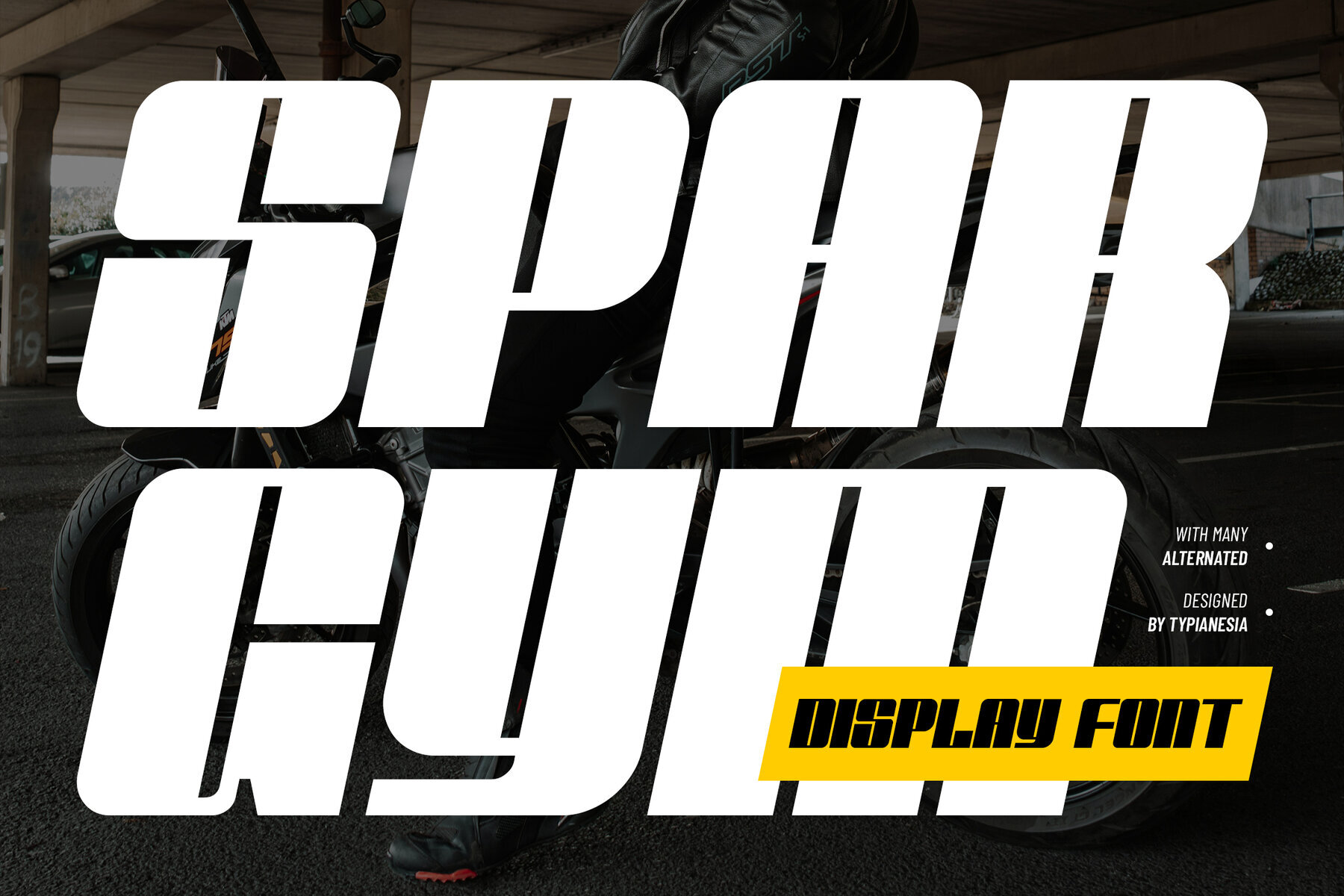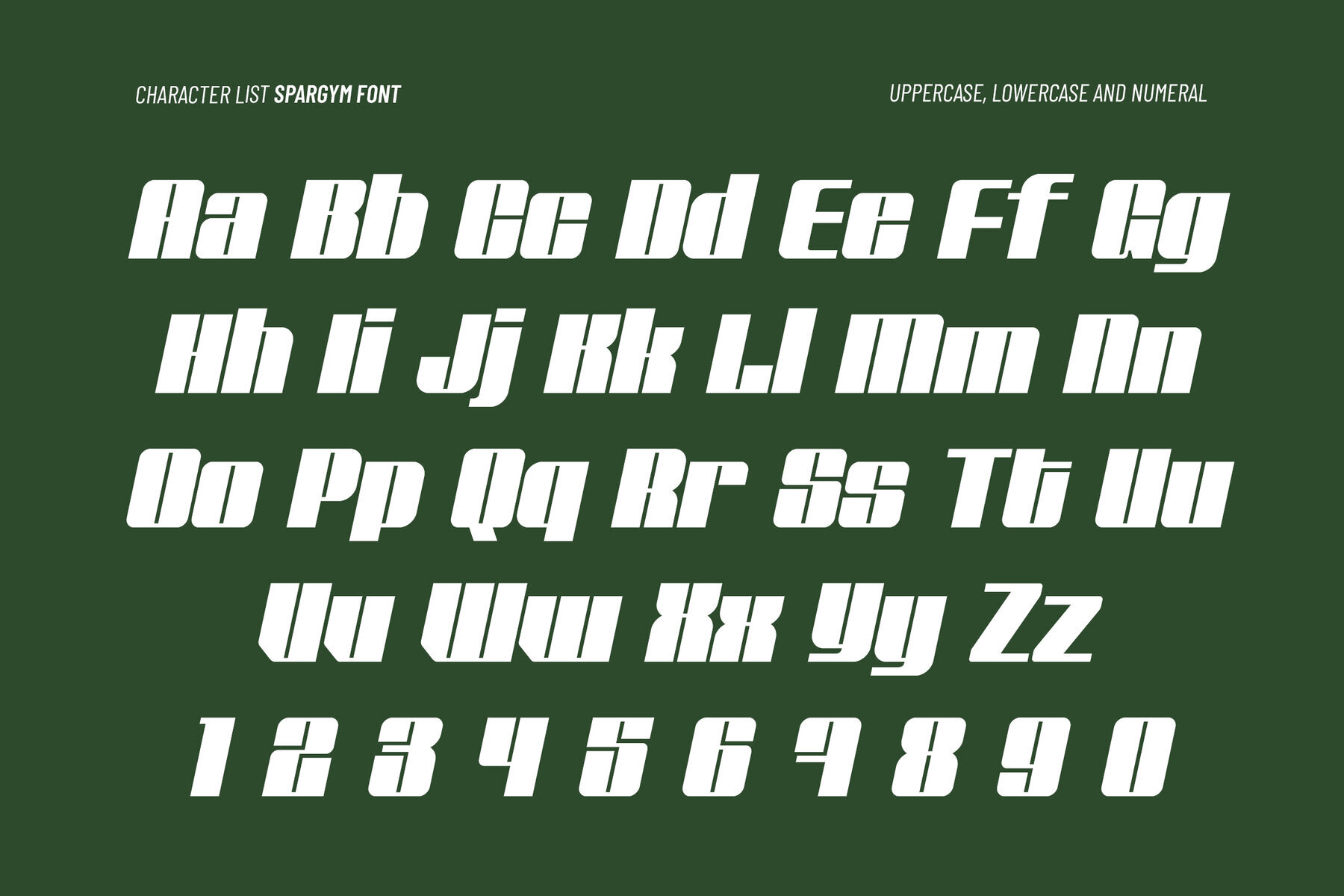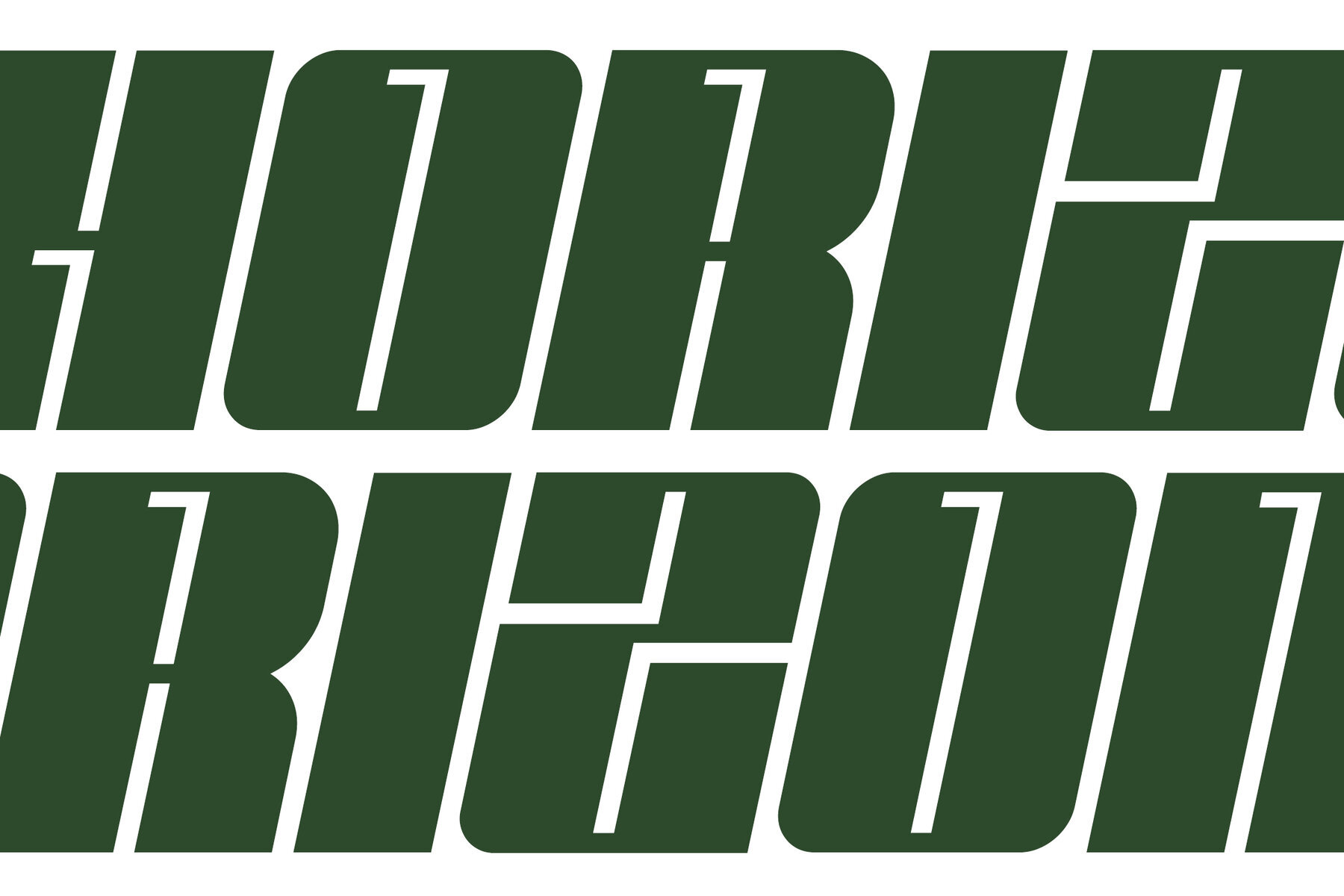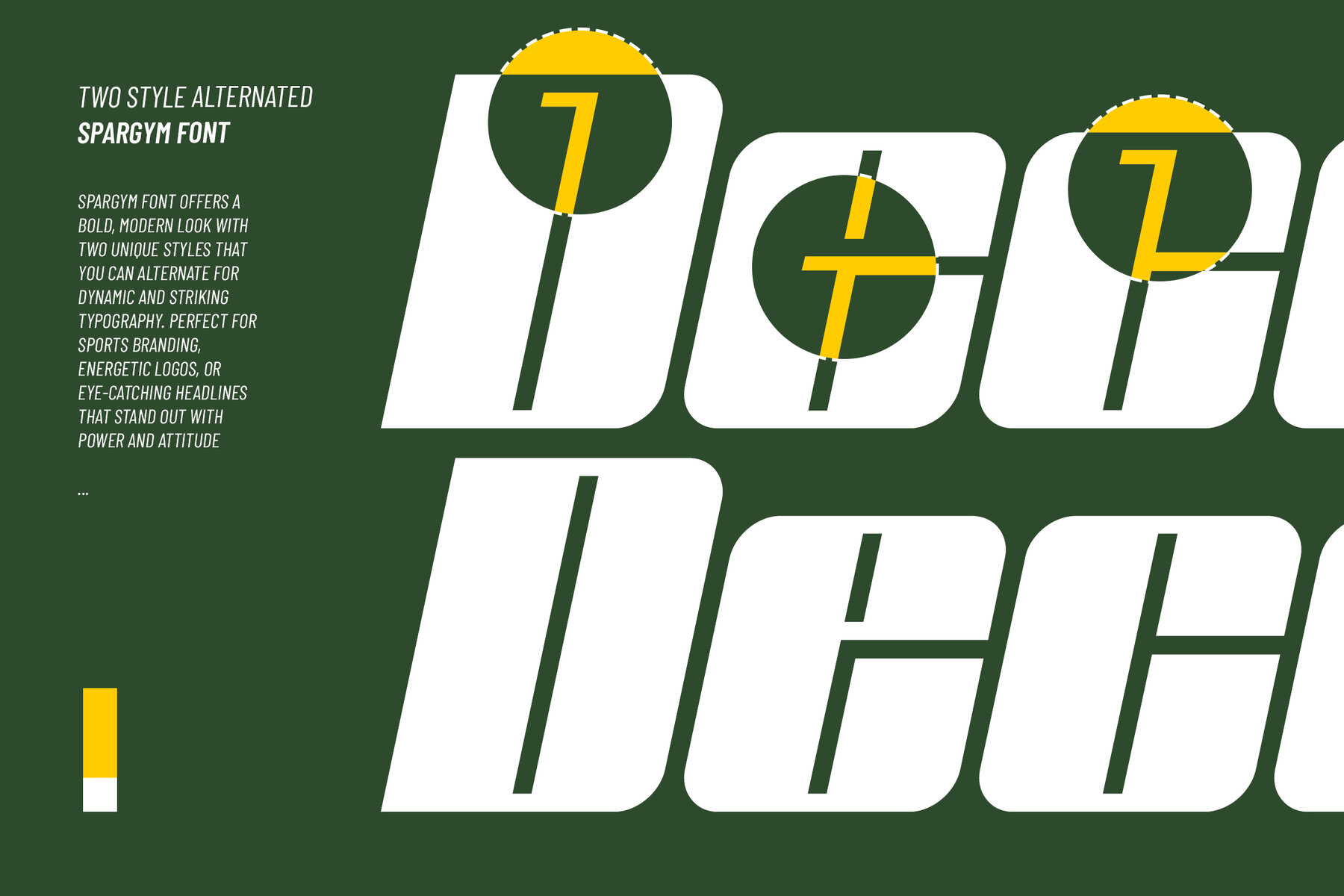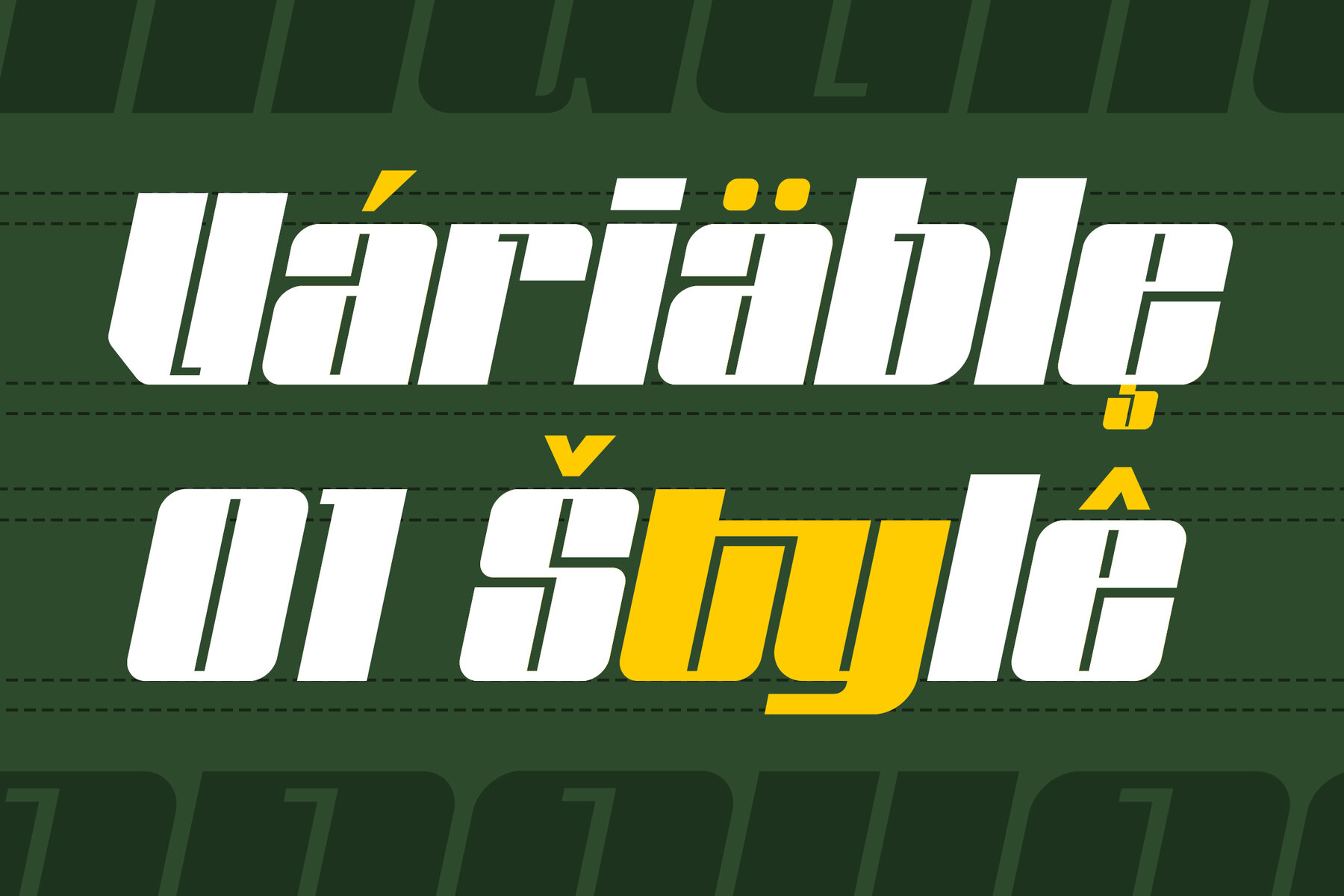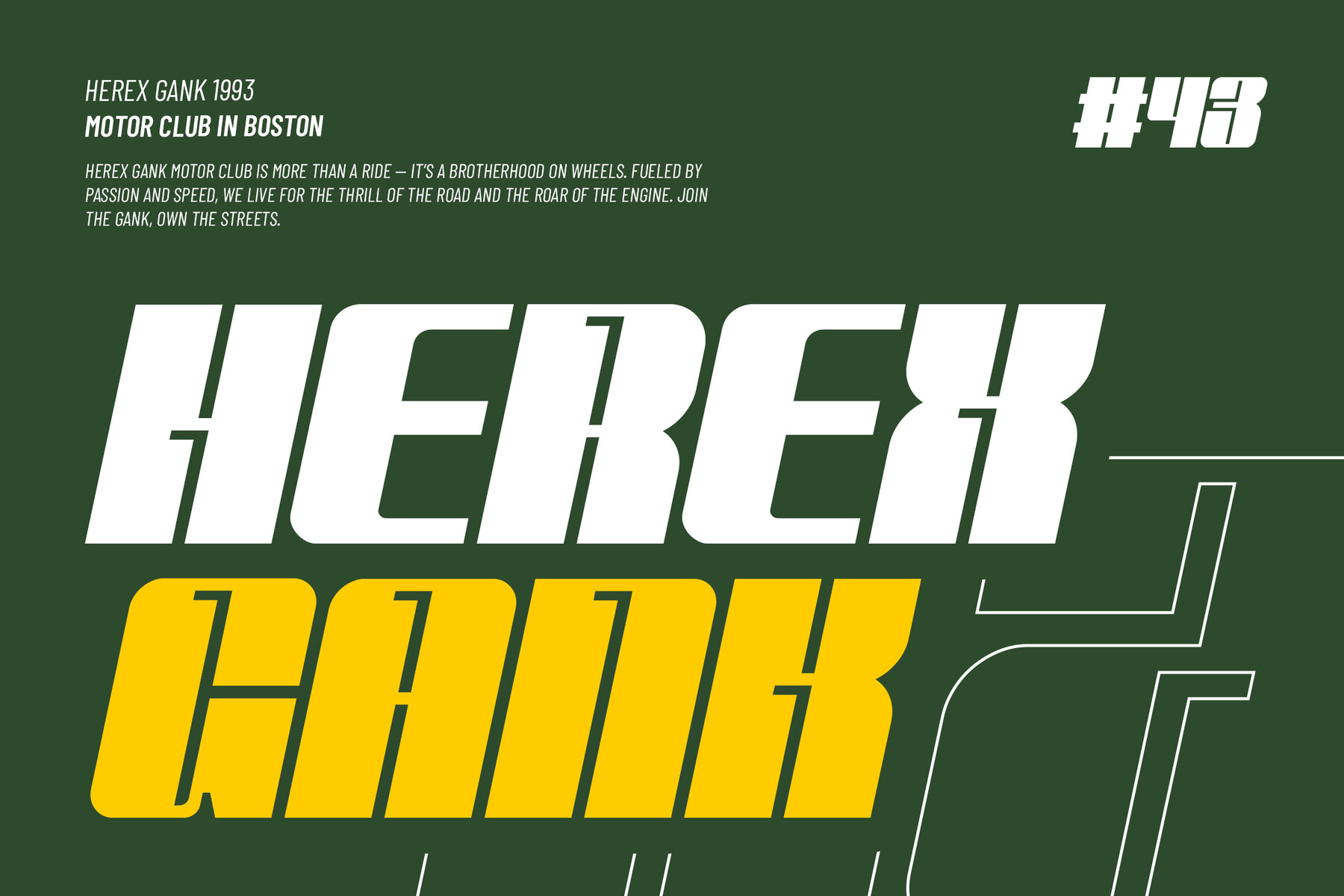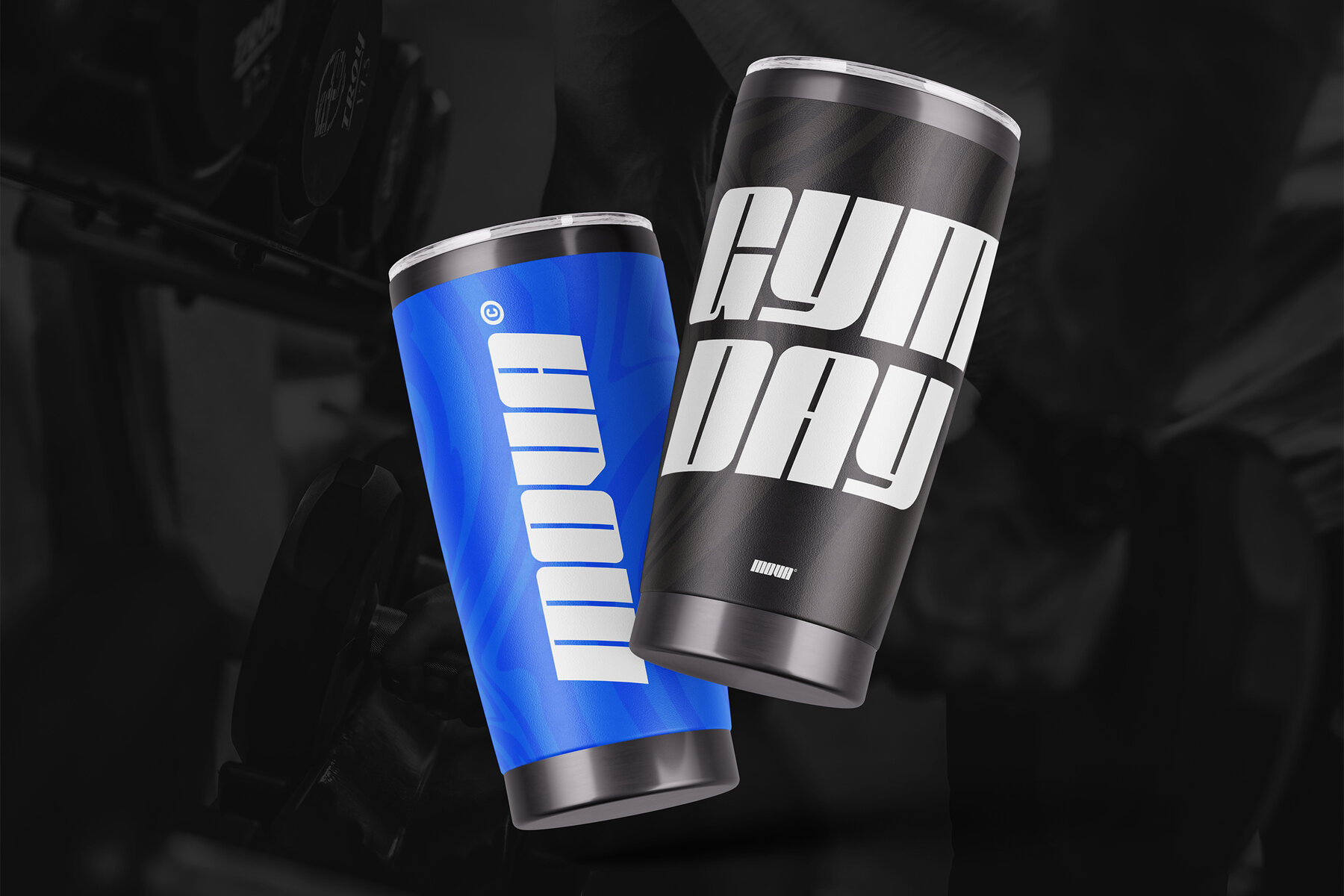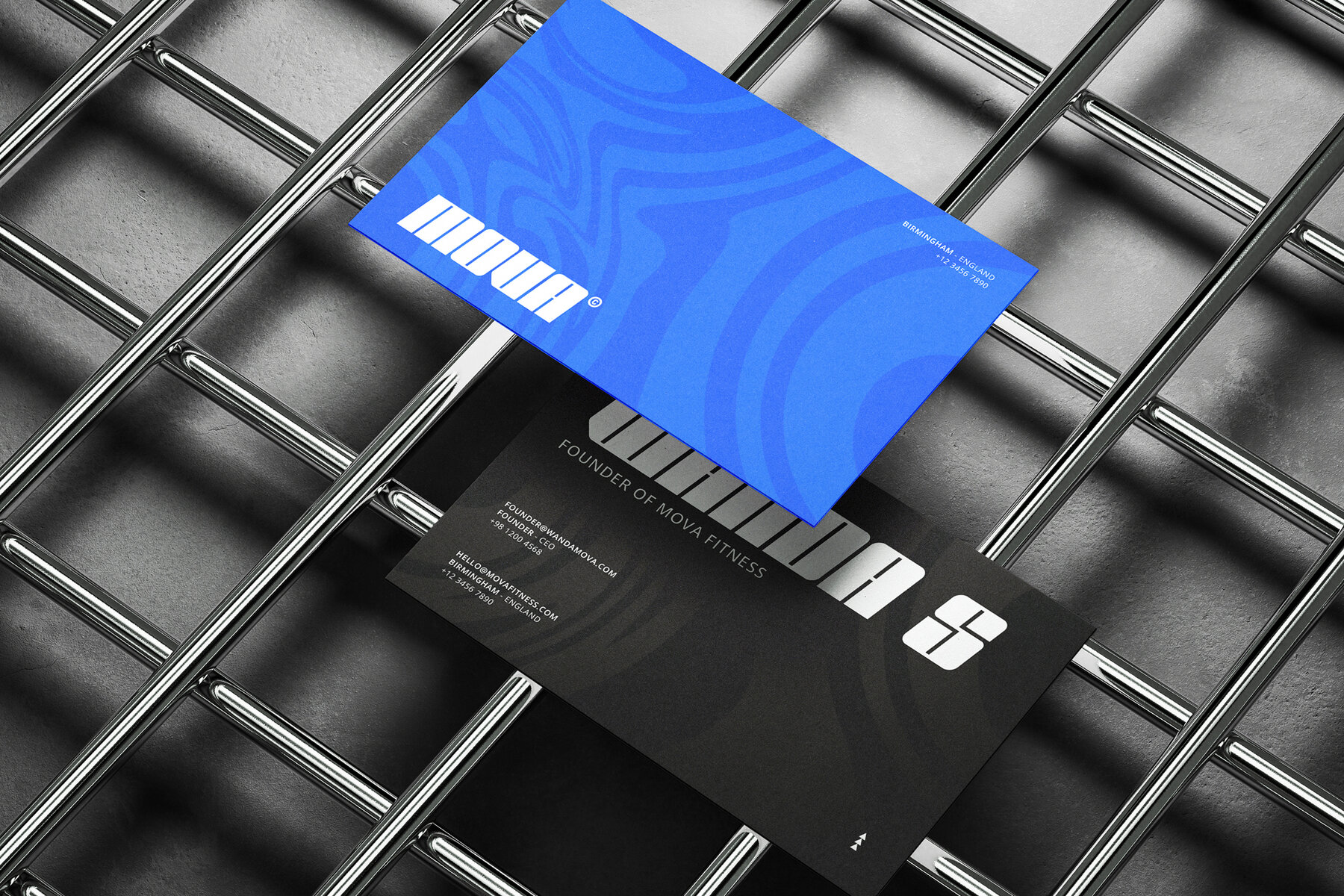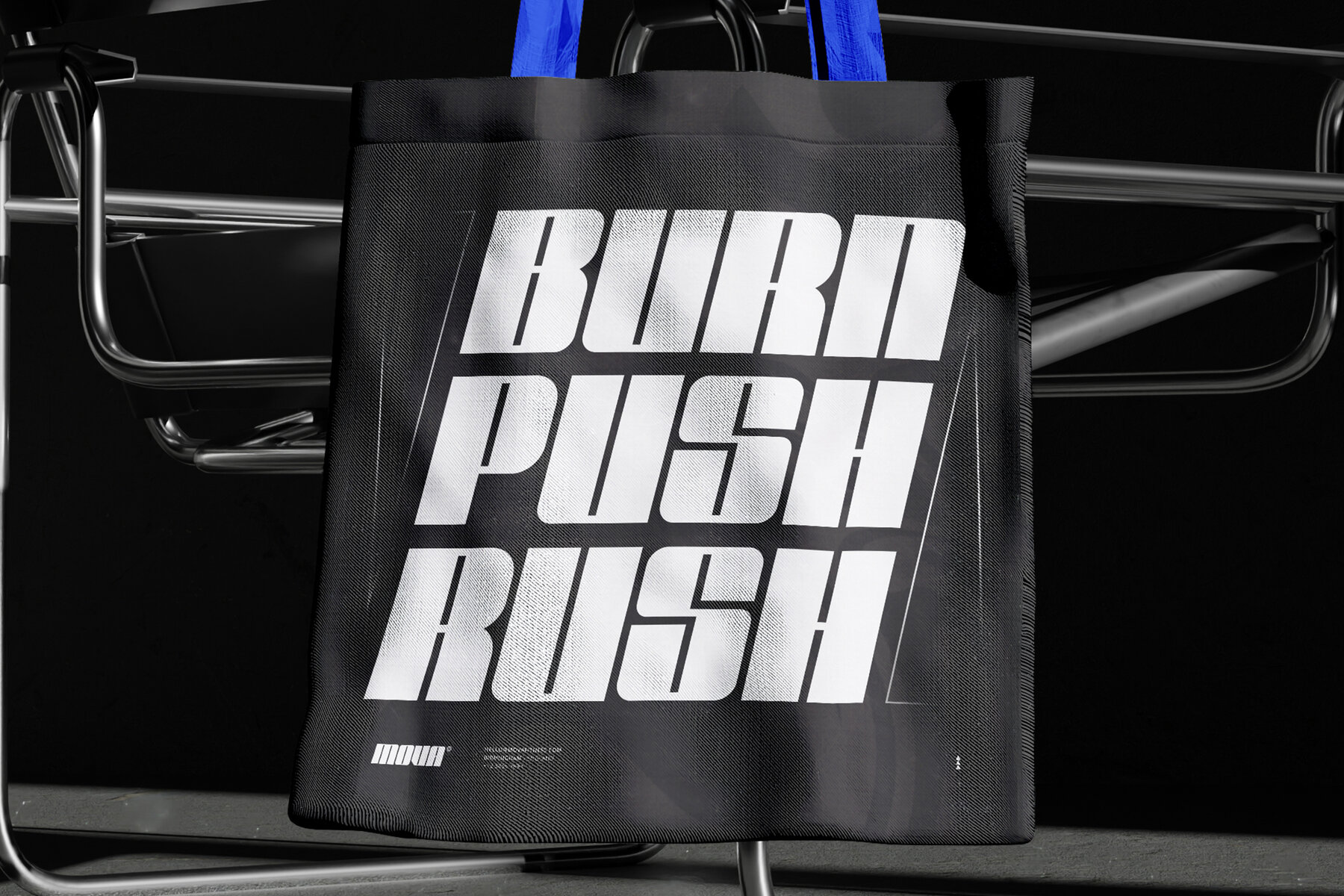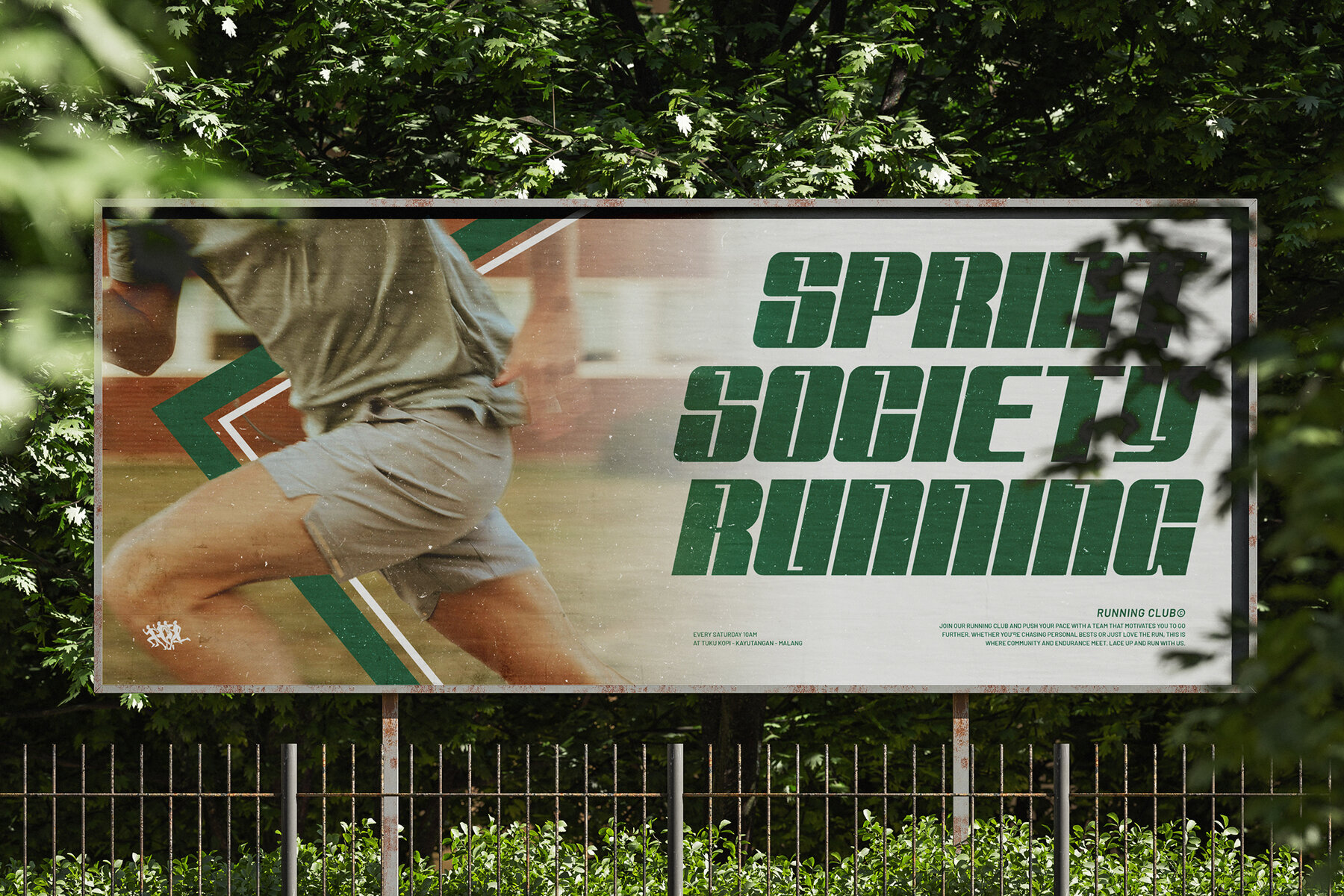
Spargym Font
Spargym Italic
Spargym stands as a testament to modern design, featuring bold, italicized geometric shapes. This font exudes strength and speed through its unique letterforms and angular cuts. Ideal for a variety of projects, Spargym enhances sports branding, technology interfaces, and dynamic headlines, providing a contemporary flair. Features:Spargym: Bold Italic Geometric Display Font
Spargym offers a confident dynamism, making it an excellent choice for posters, merchandise, advertising, and gaming titles. Embrace this dynamic font to create memorable designs.